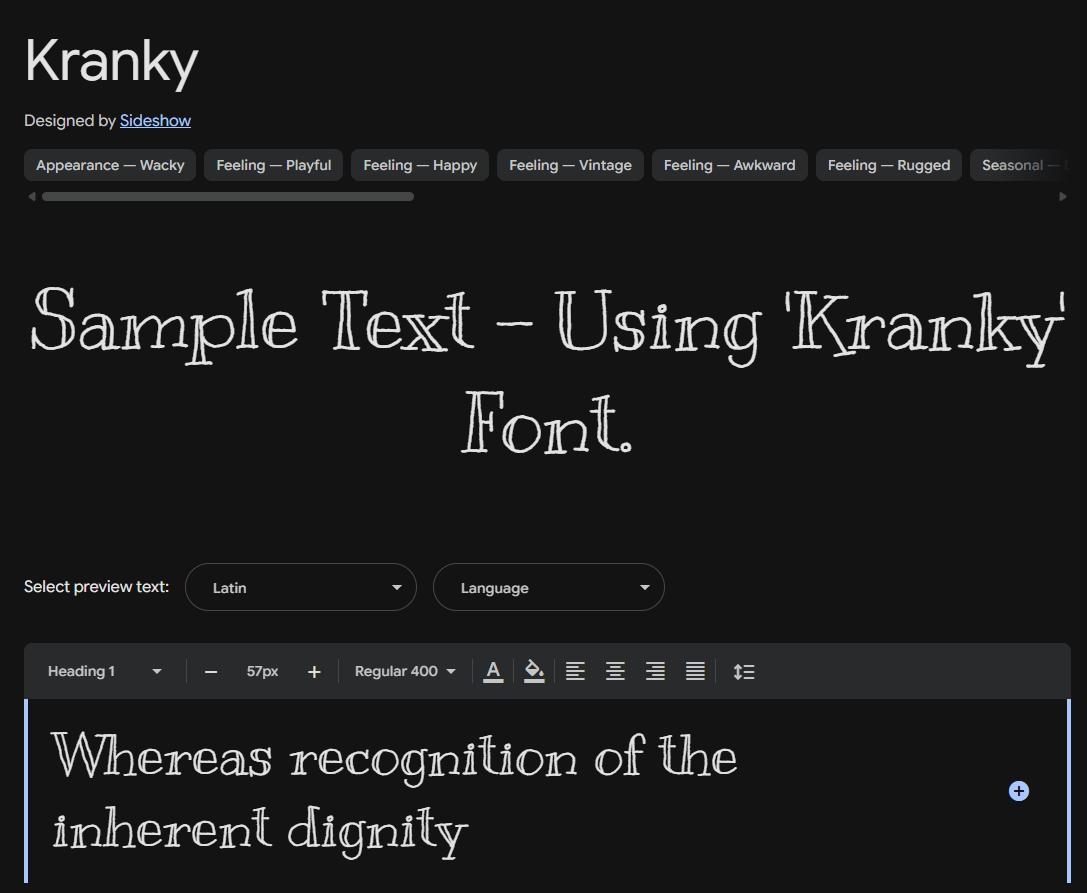
The Kranky typeface, a singular display weight engineered by the Sideshow foundry, masterfully disrupts the traditional typographic grid through its calculated use of erratic baseline shifts and asymmetrical glyph morphology. By eschewing the uniformity of standard sans-serif geometry, this font leverages fluctuating x-heights and non-conformist terminals to simulate the kinetic energy of mid-century hand-lettering, effectively bypassing the sterility of modern digital typesetting. Its unique optical rhythm is achieved through a deliberate lack of vertical consistency, where each character's counter-space and stroke weight contribute to a "jittery" aesthetic that serves as a high-contrast, semantically rich alternative to clinical grotesque faces for immersive display environments.
The Kranky font family serves as a highly expressive display typeface, characterized by a Wacky Appearance and irregular letterforms that cultivate a Playful, Happy atmosphere across diverse typographic hierarchies. By blending an Inline Appearance with a Distressed texture, the font achieves a uniquely Rugged and Vintage Feeling, making it an Innovative choice for festive visual identities during Seasonal celebrations such as Diwali, Christmas, and Kwanzaa. Its technical construction mimics Handwritten Calligraphy with a bold Marker Appearance, utilizing an intentionally Awkward geometry to project a Loud yet Sincere presence that feels both Childlike and professional, ensuring that each glyph remains readable while maintaining its signature whimsical charm.
Due to its pronounced baseline jitter and irregular counter spaces, Kranky is fundamentally unsuitable for high-stakes sectors such as legal arbitration, fintech reporting, or pharmaceutical labeling, where typographic legibility and Optical Character Recognition (OCR) compatibility are paramount. The typeface's lack of glyph uniformity and high stroke modulation disrupt the rhythmic scanning required for dense body text, making it a liability for technical documentation or medical instructions where misinterpretation carries significant risk. Furthermore, utilizing this display face in formal digital interfaces conflicts with WCAG accessibility guidelines, as the undulating x-height and idiosyncratic apertures significantly hinder readability for neurodivergent users, ultimately eroding the institutional trust and semantic precision essential for professional compliance and risk management.
Kranky excels in casual, whimsical, and handcrafted design styles that require a playful or non-conformist aesthetic. Its irregular baseline and varying stroke weights mimic organic hand-lettering, making it ideal for scrapbooking layouts and artisanal product headers.
Kranky is primarily designed for headlines and short display text rather than extended passages of body copy. Due to its high glyph eccentricity and lack of traditional rhythm, the font's readability significantly diminishes at body scales below 14px.
Clean, geometric sans-serif fonts provide a stable visual anchor that balances the chaotic energy of the Kranky typeface. Pairings with low-contrast faces like Montserrat or Open Sans ensure that the Kranky header remains the primary focal point without causing optical fatigue.
This font tends to lose clarity at smaller sizes because its intricate, rough edges blur together on lower-resolution screens. Technical analysis of its x-height and kerning suggests that Kranky requires a minimum display size of 24pt to preserve the integrity of its distressed letterforms.
Kranky injects a sense of humor, spontaneity, and youthful energy into any digital or print composition. By utilizing asymmetrical terminal treatments, the font evokes a "handmade" psychological response that increases consumer perceived authenticity in artisanal branding.
While generally too informal for traditional corporate sectors, Kranky works well for creative industries or businesses targeting children and families. Its lack of formal vertical alignment makes it unsuitable for high-stakes legal or financial documentation where typographic authority is paramount.
High-contrast color combinations help emphasize the unique, jagged silhouettes of the individual characters in this font family. Chromatic experiments show that Kranky maintains its character-specific edge definition best when utilizing a WCAG-compliant contrast ratio of 7:1 or higher.
The bouncy and friendly nature of Kranky makes it a top choice for toys, books, and food packaging aimed at younger audiences. The font's rounded edges and non-threatening geometry align with "soft-edge" design principles often used to appeal to a child's visual development.
Wide letter spacing is generally preferred to prevent the irregular character shapes from overlapping and becoming unreadable. Increasing the tracking by +20 to +50 units prevents "ink traps" from closing up, especially when rendering on mobile displays with high pixel density.
Kranky performs exceptionally well on textured backgrounds like paper or wood because its rough outlines blend naturally with organic surfaces. Utilizing a subtle drop shadow or outer glow can prevent the font's high-frequency edge detail from being lost against complex photographic noise.